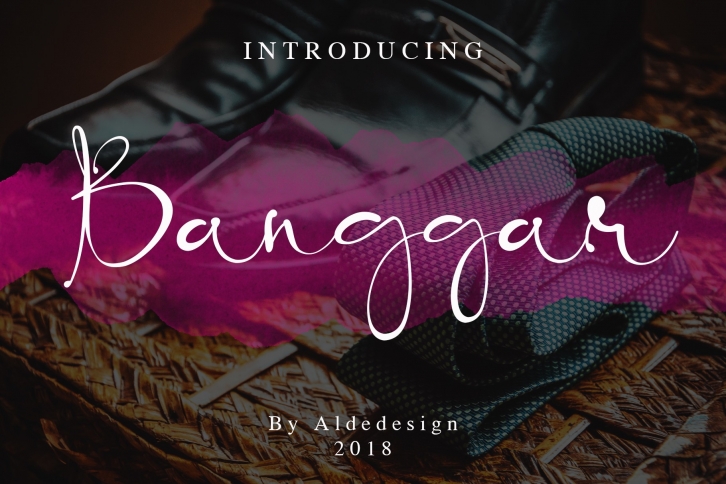
Banggar Signature is a gorgeous font that was realeased on June 30, 2018. The font can be used in many style contexts and design environments. Perfect for invitations, magazines, websites, logos, and more! It was designed by aldedesign and the file size is 11.97 MB. Thanks for checking out this font!